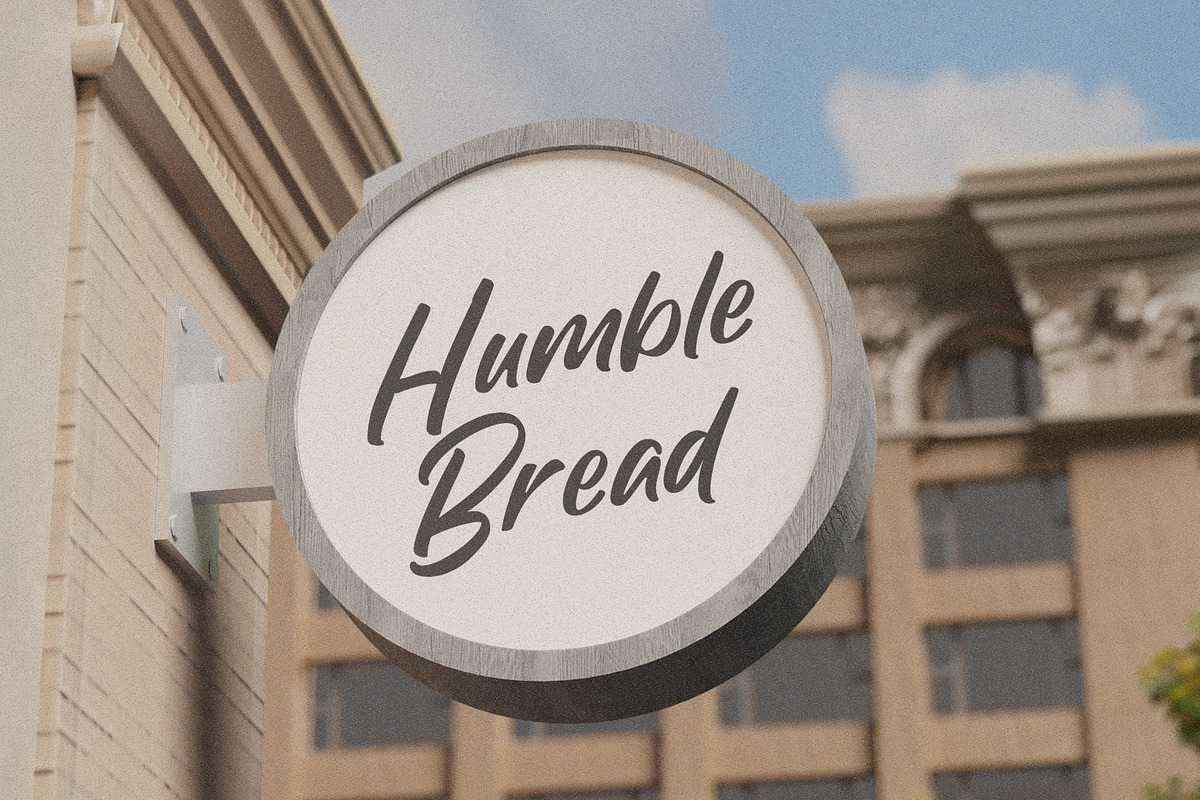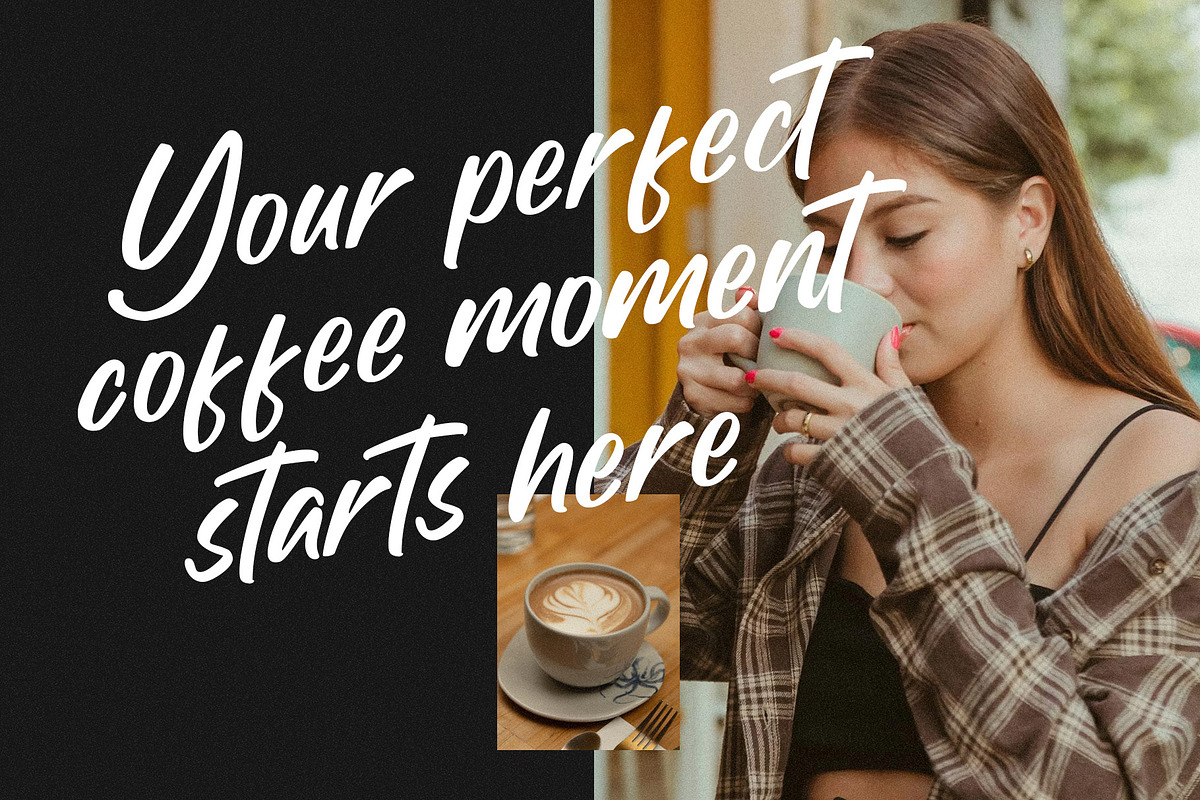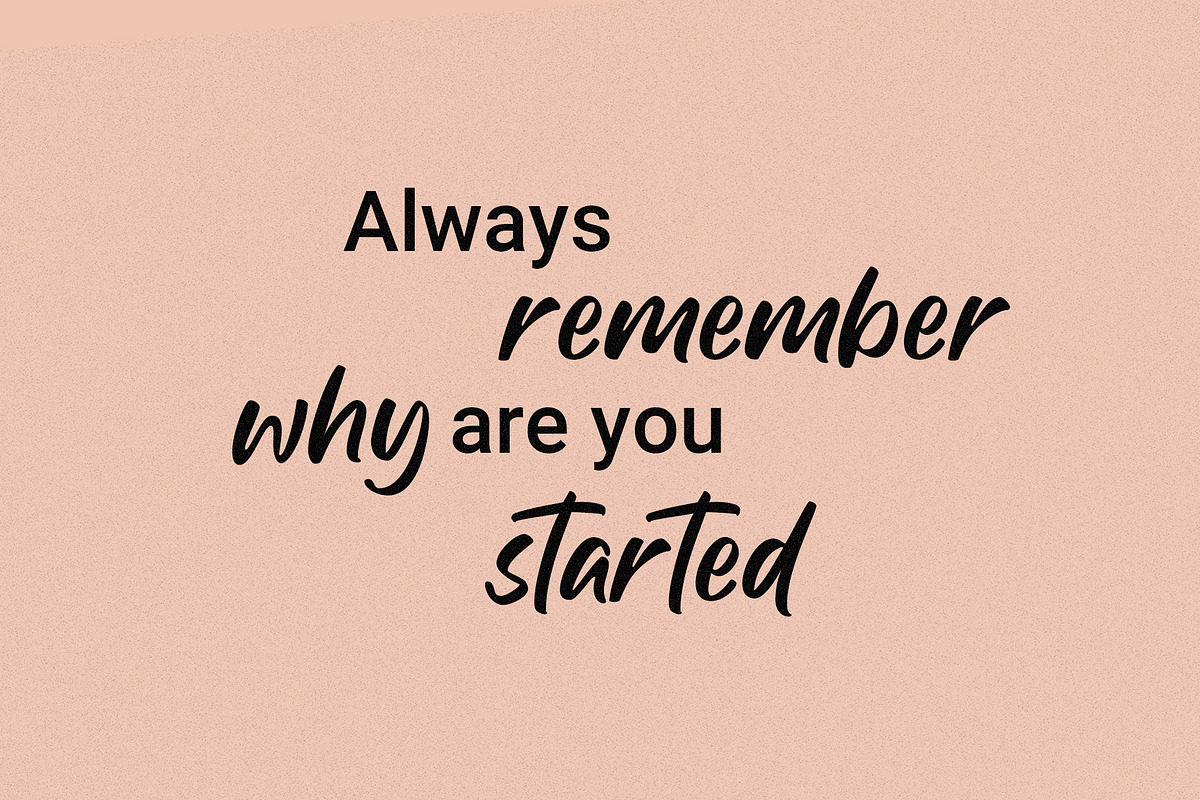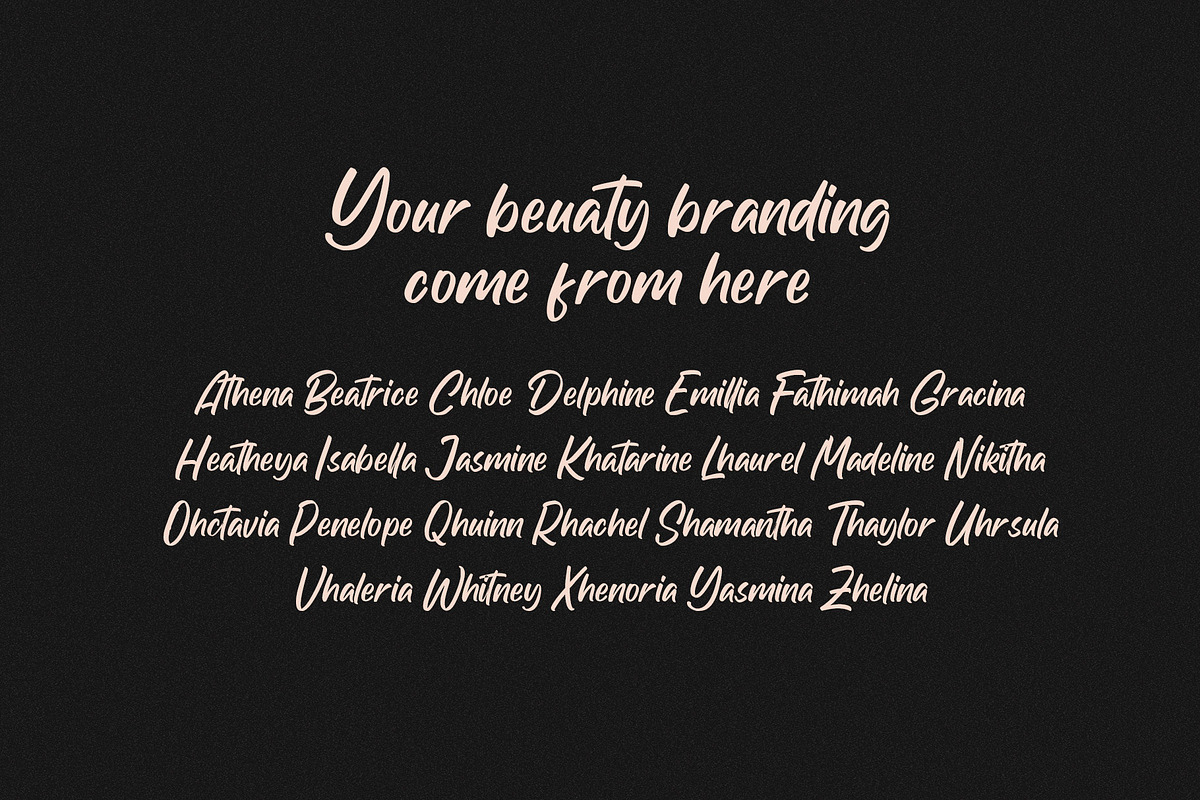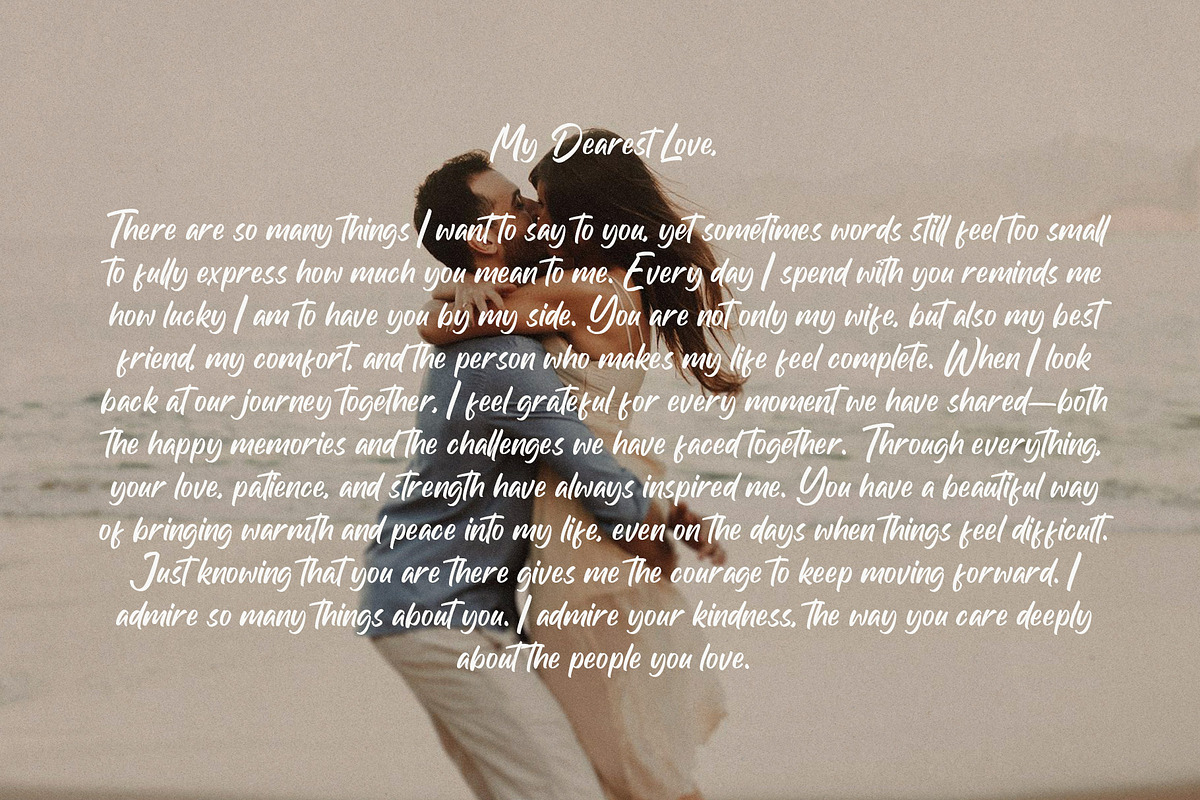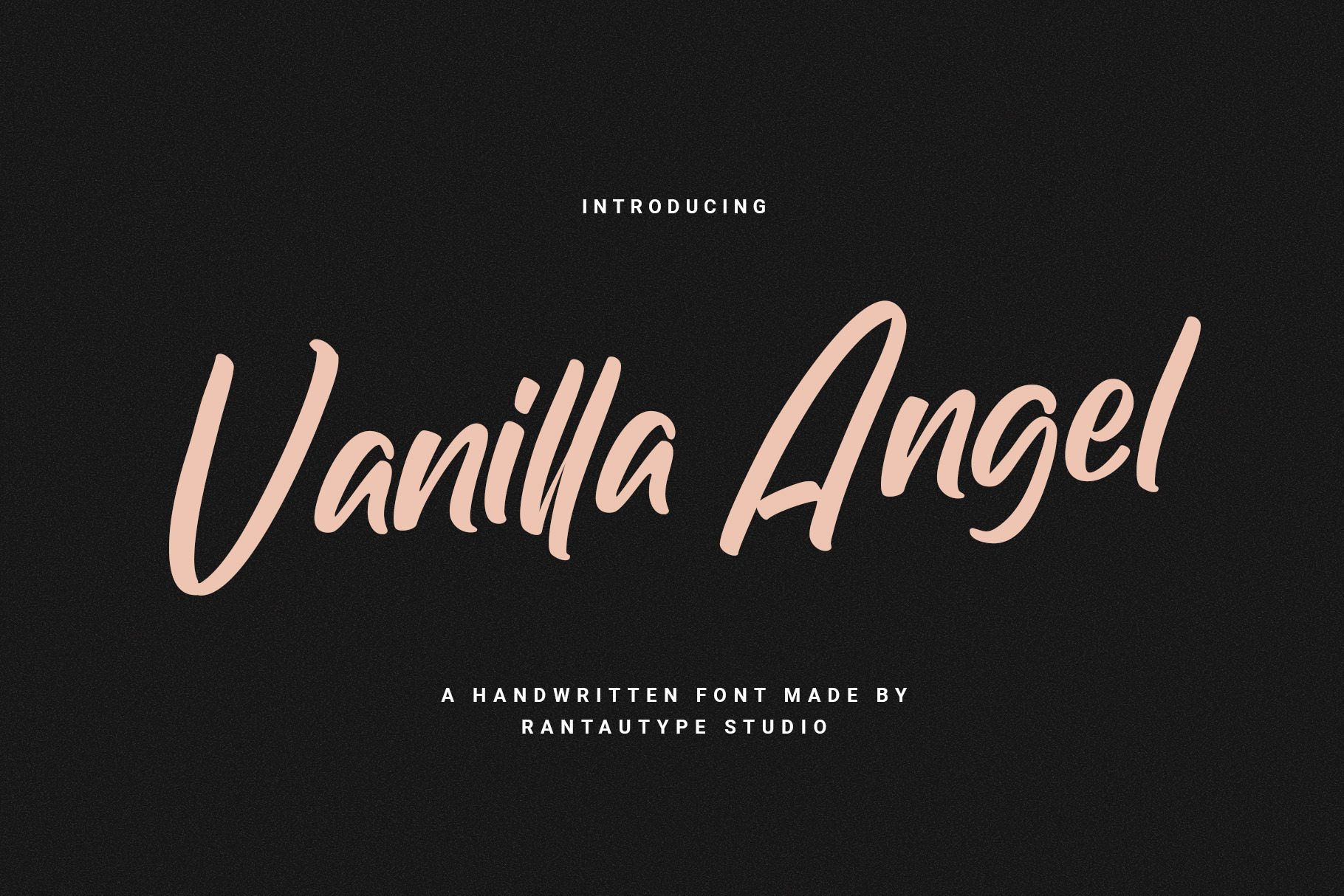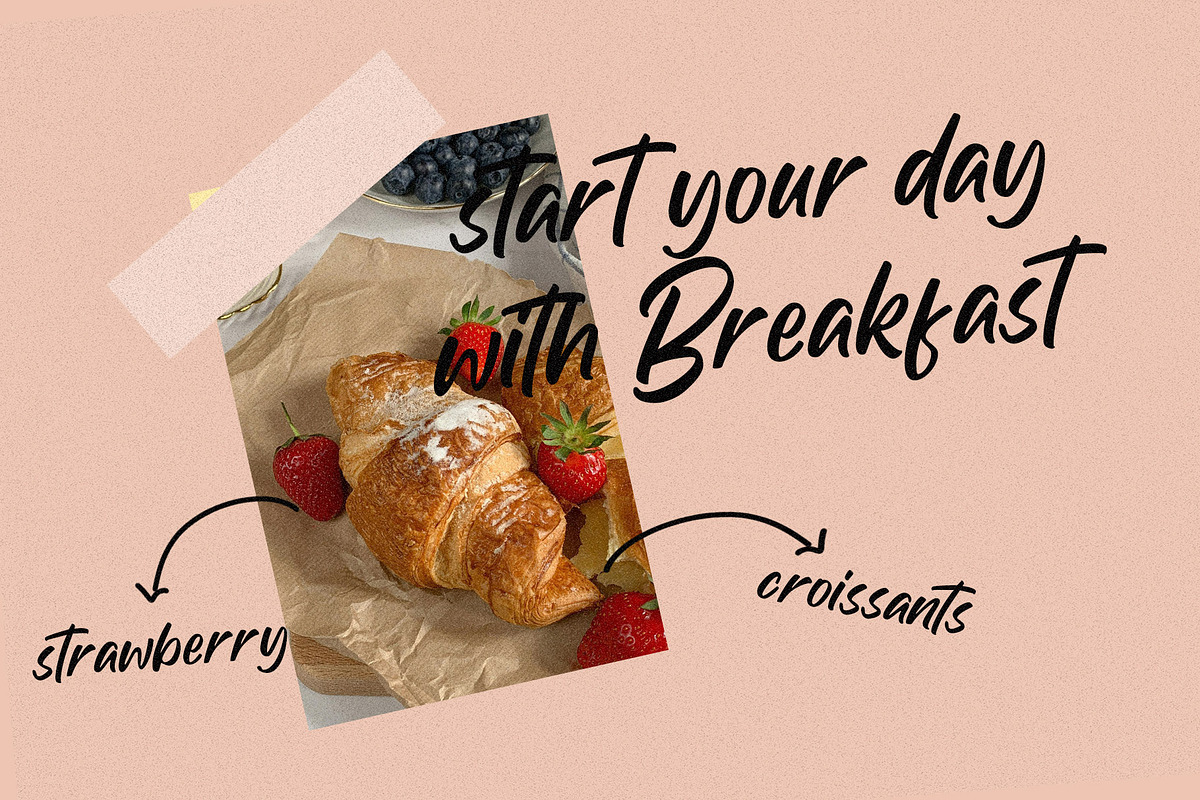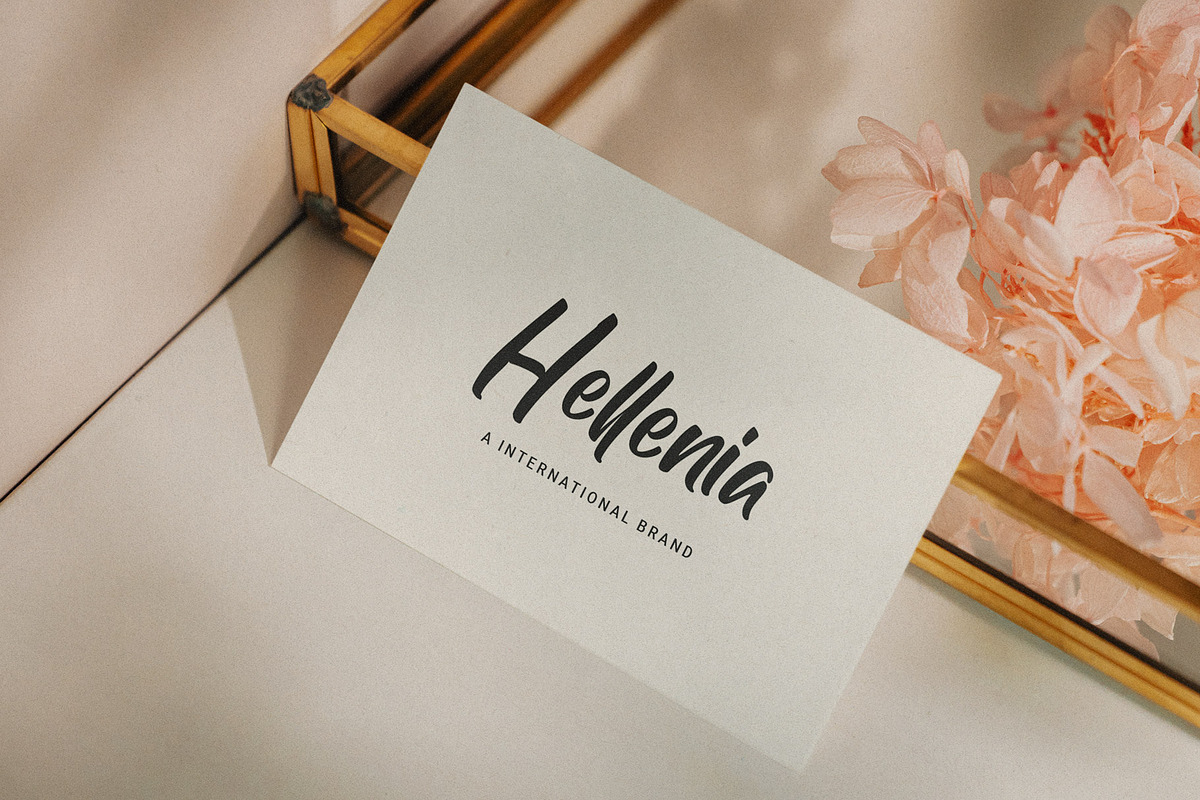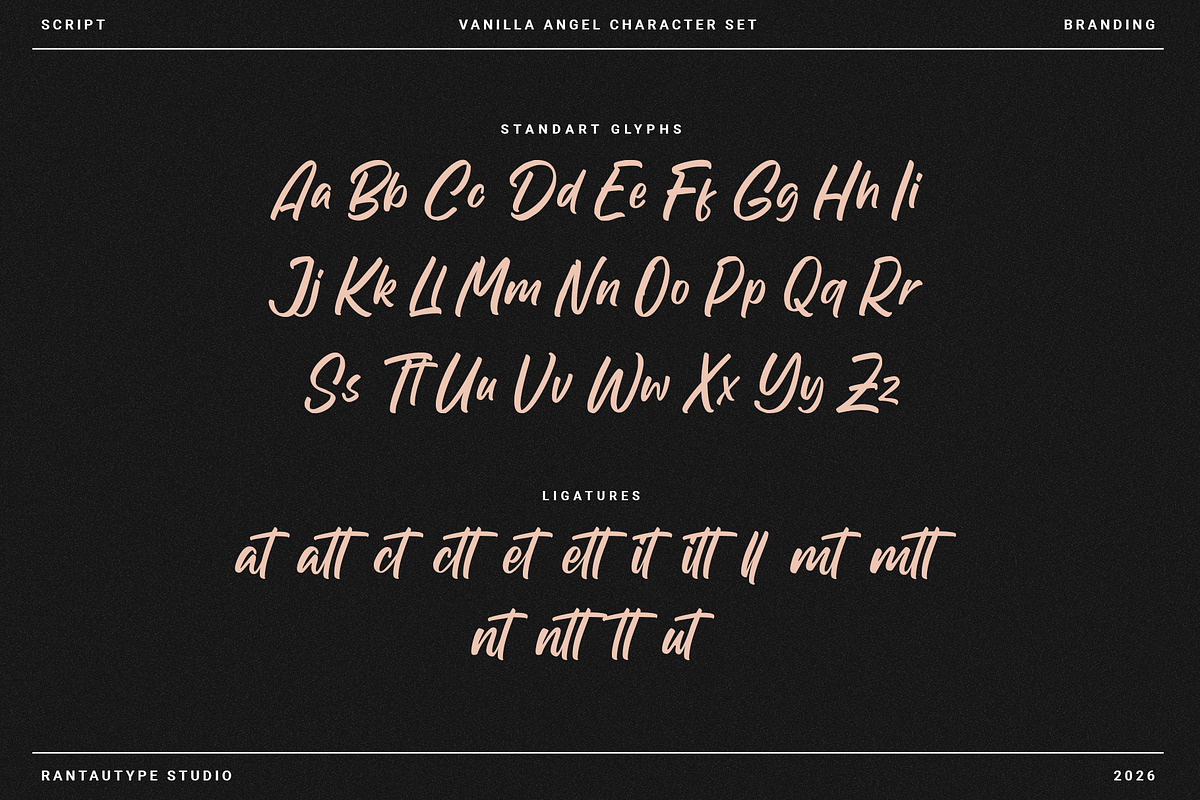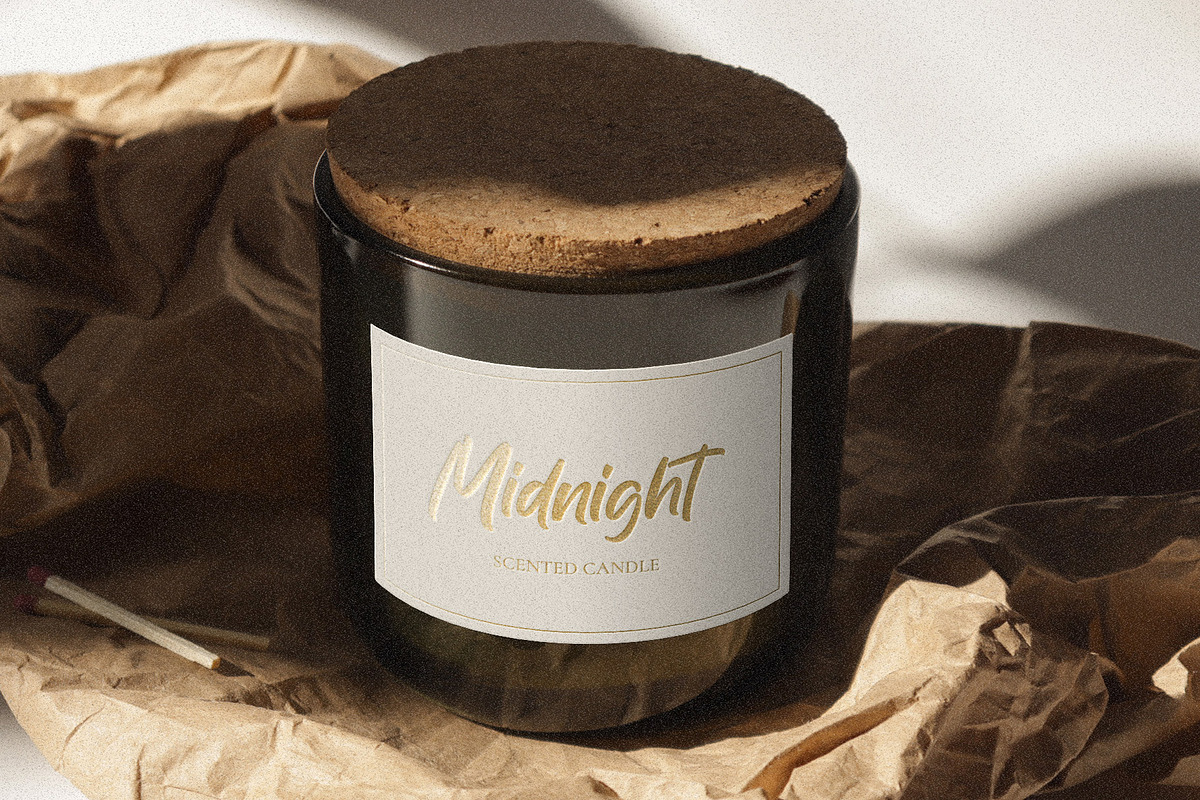
Vanilla Angel a Handwritten Font
Vanilla Angel is handwritten font with smooth curves and well crafted letterforms, this typeface delivers a friendly yet sophisticated personality that instantly adds warmth to any visual project.
Vanilla Angel is a perfectly choice for any creative endeavor, creating, modern, lifestyle design such as logotype, title, cover, branding, invitations, wedding designs, display and magazine, social media posts, advertisements, printed quotes, product packaging, corporate brand, product designs, labels, photography, watermarks, special events and any other project with modern touch.
Standart Glyphs
Numberial and Functional
Alternate and ligature